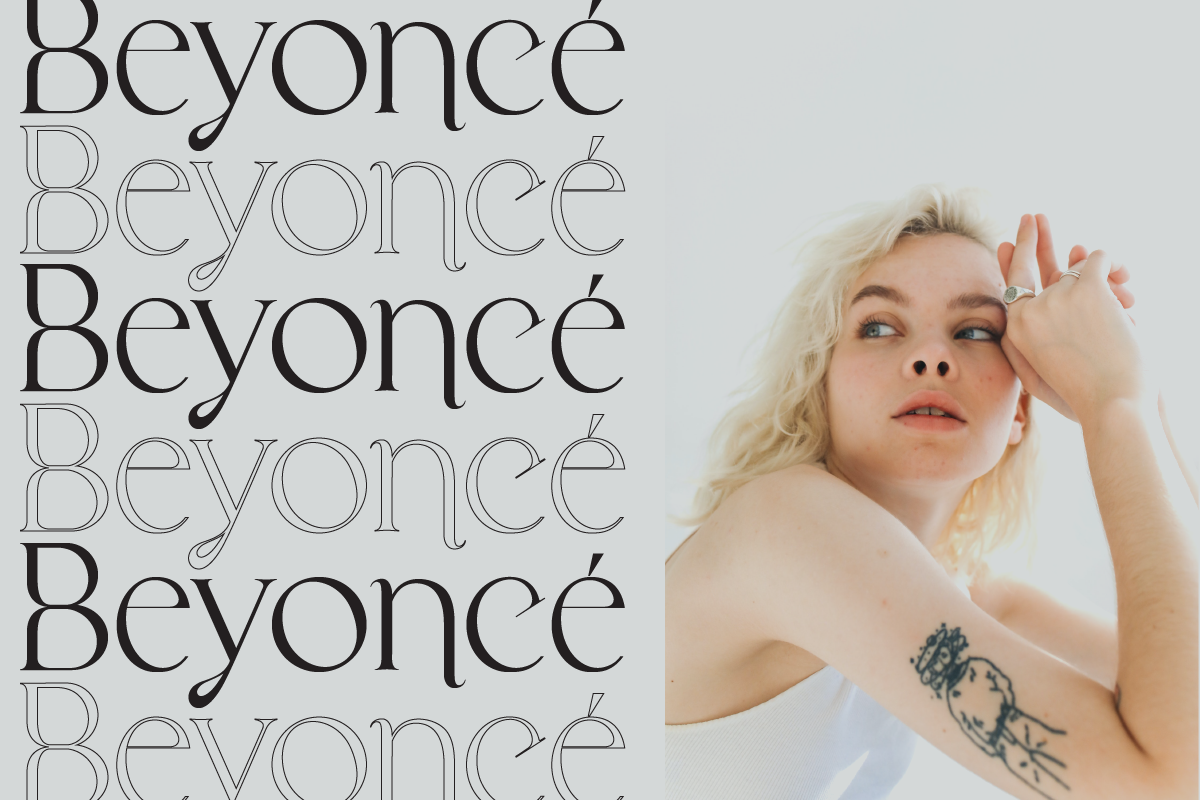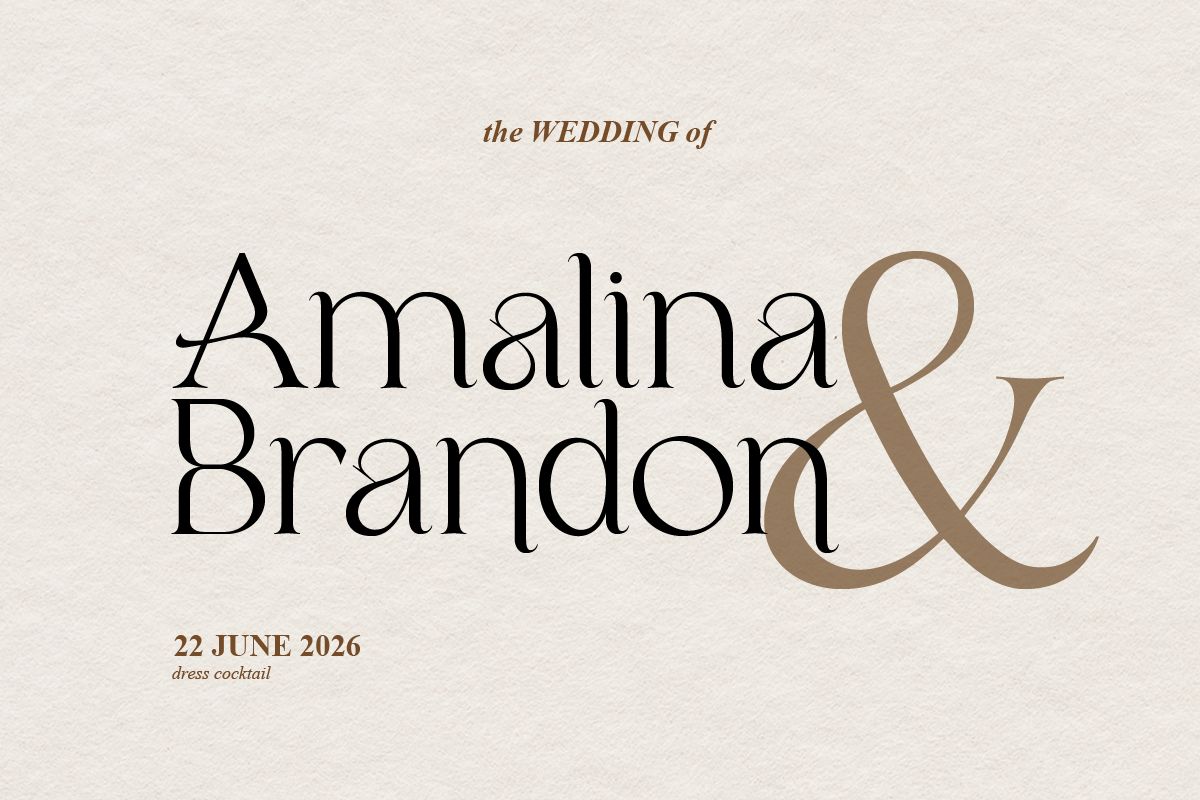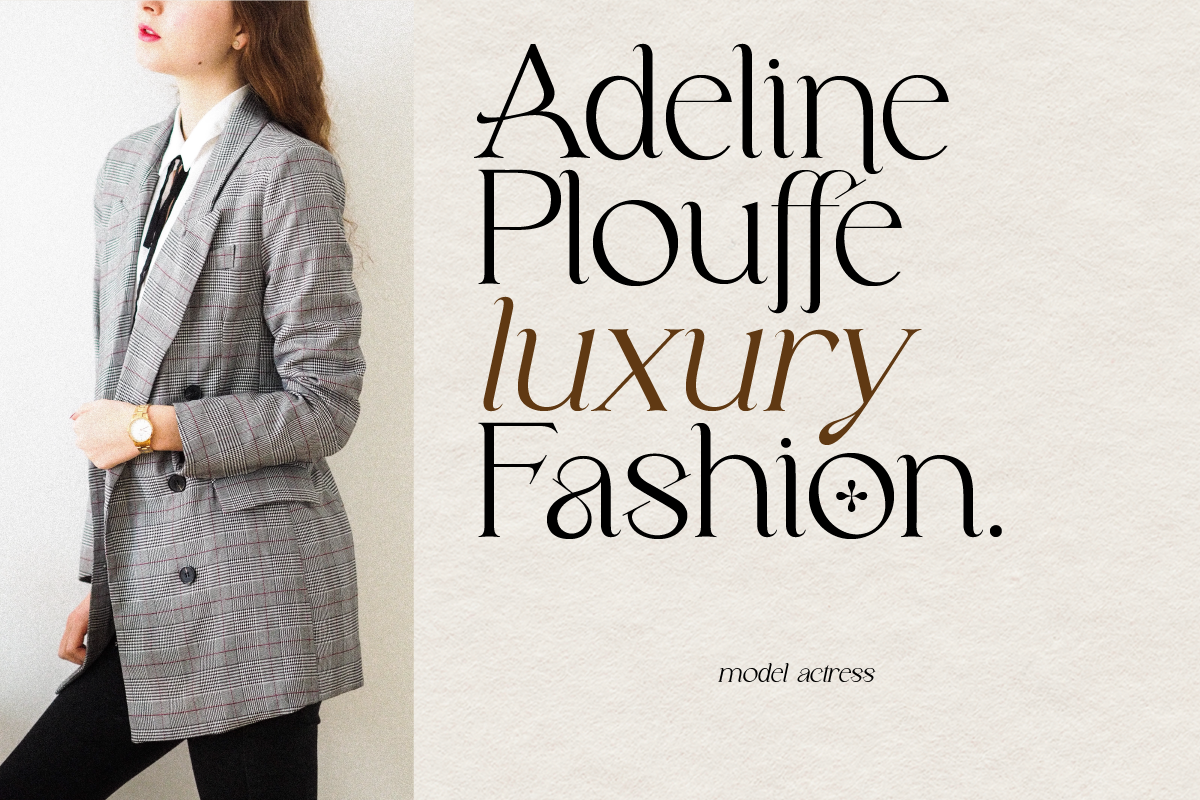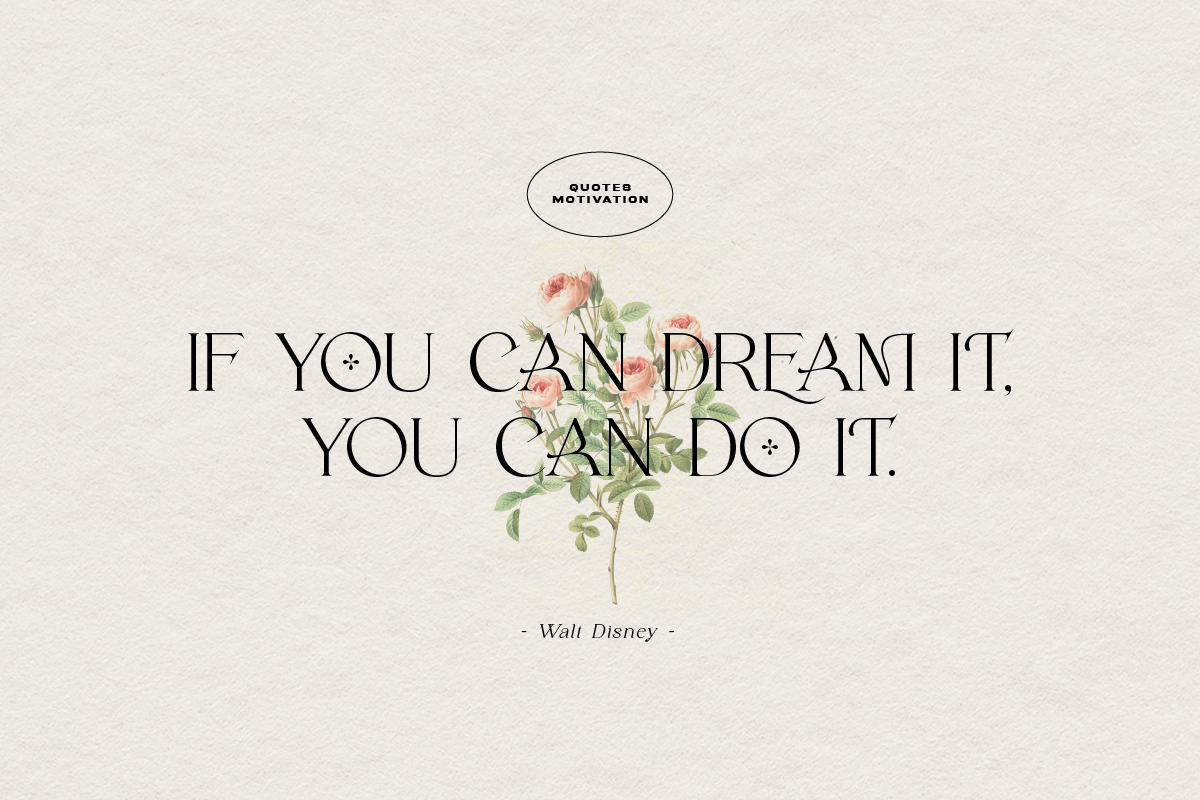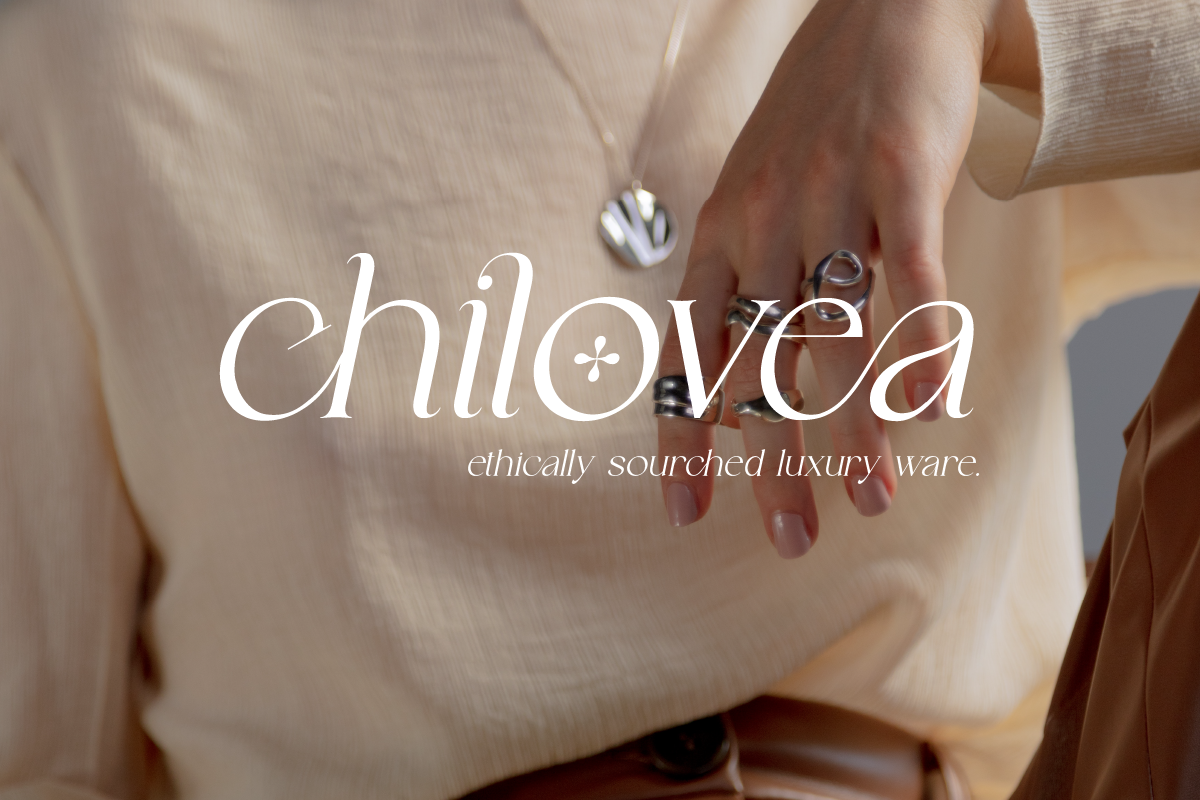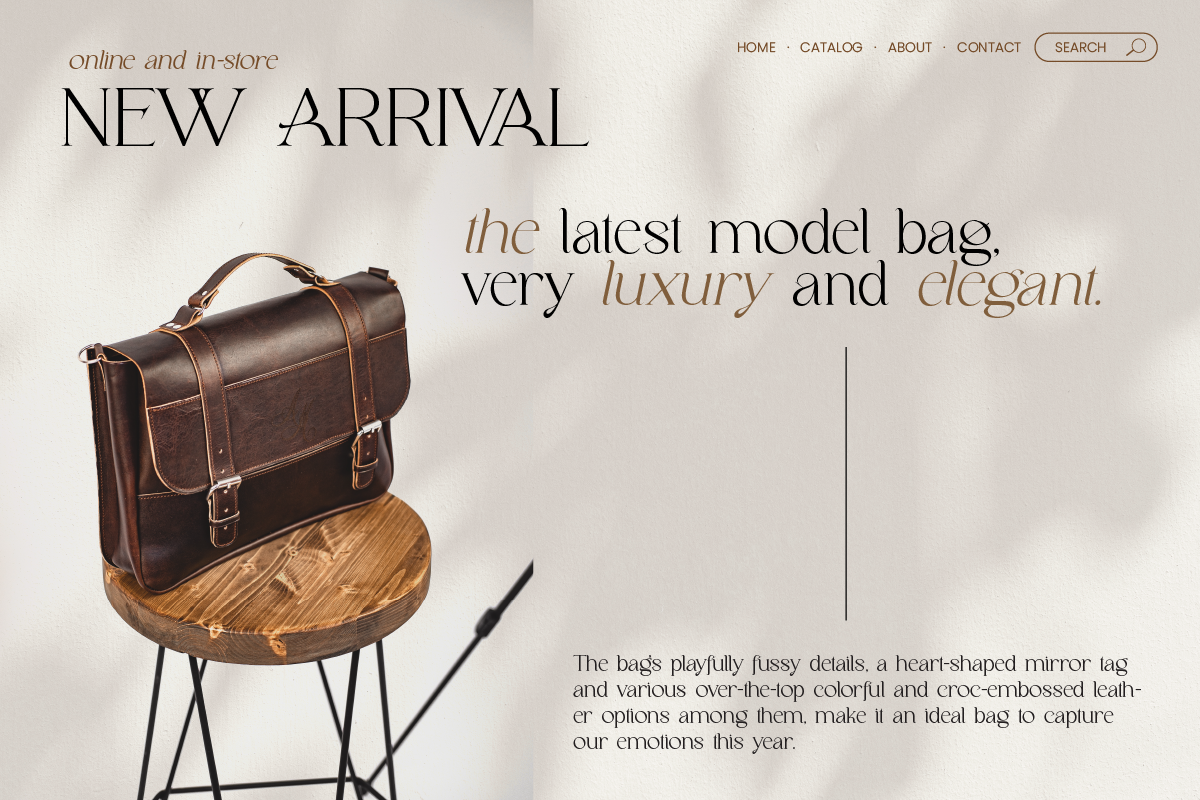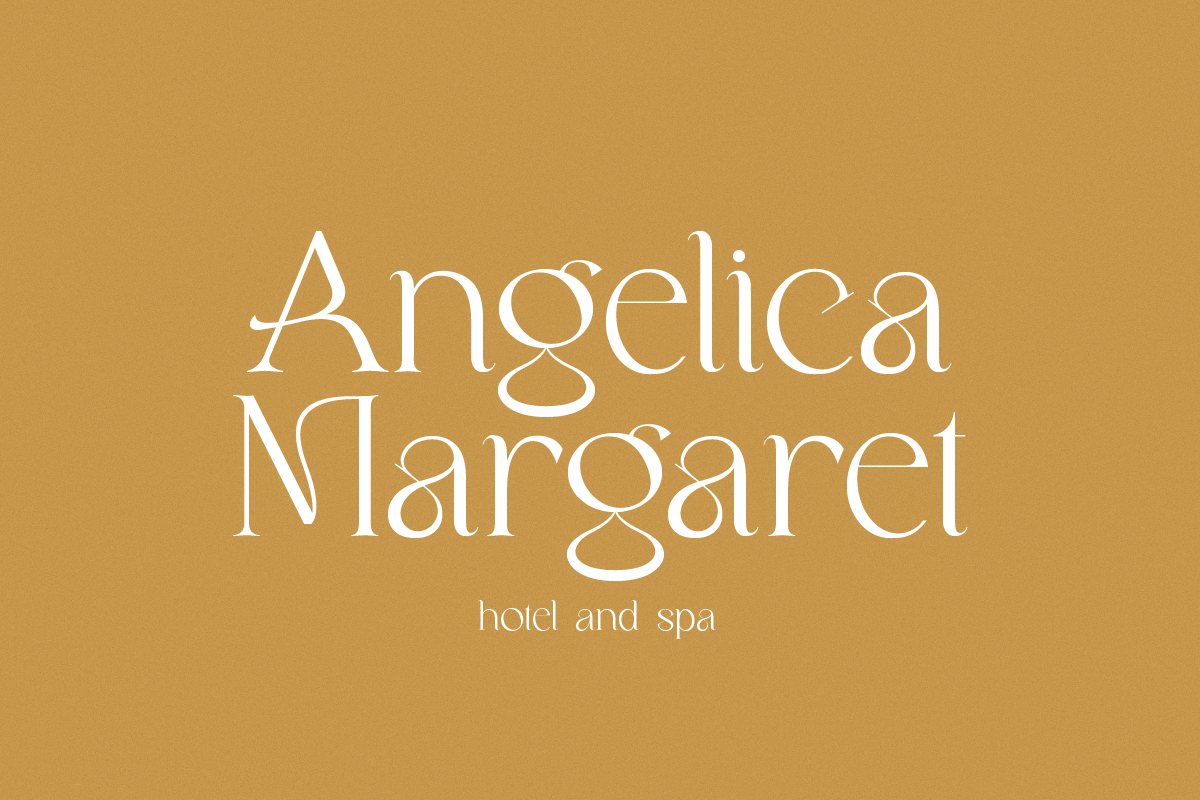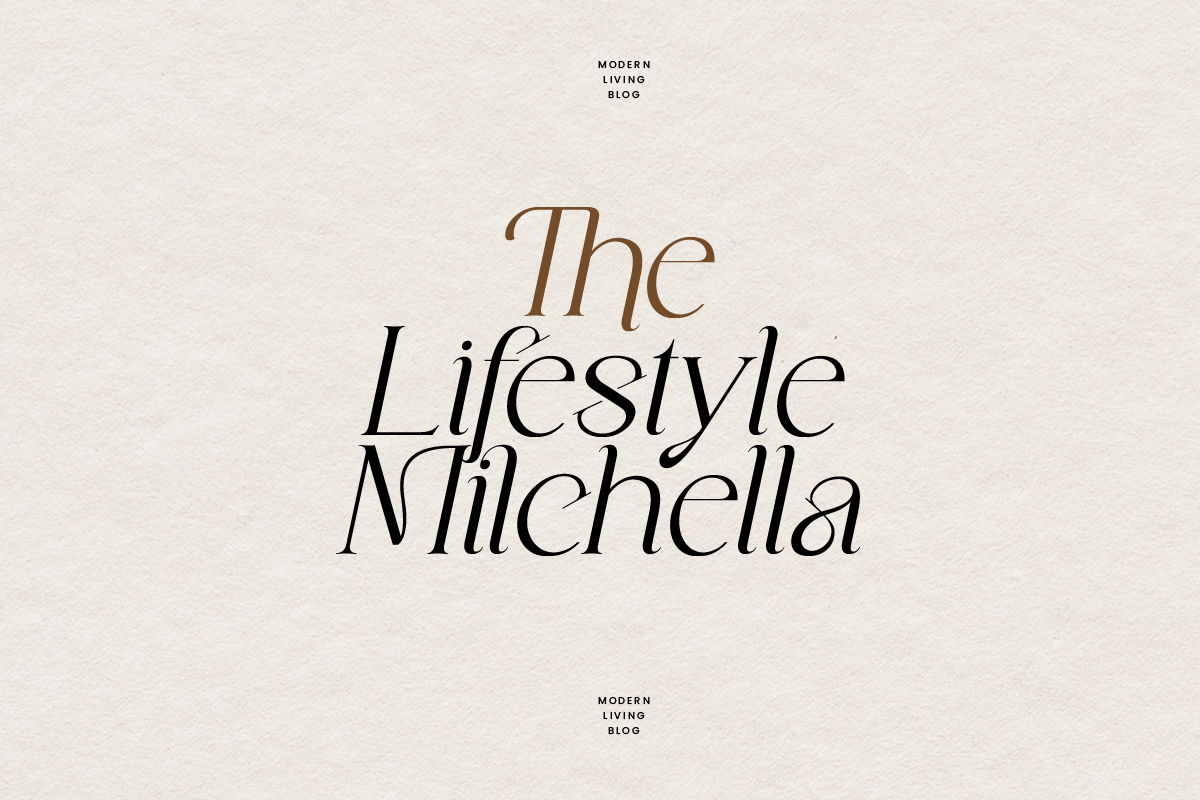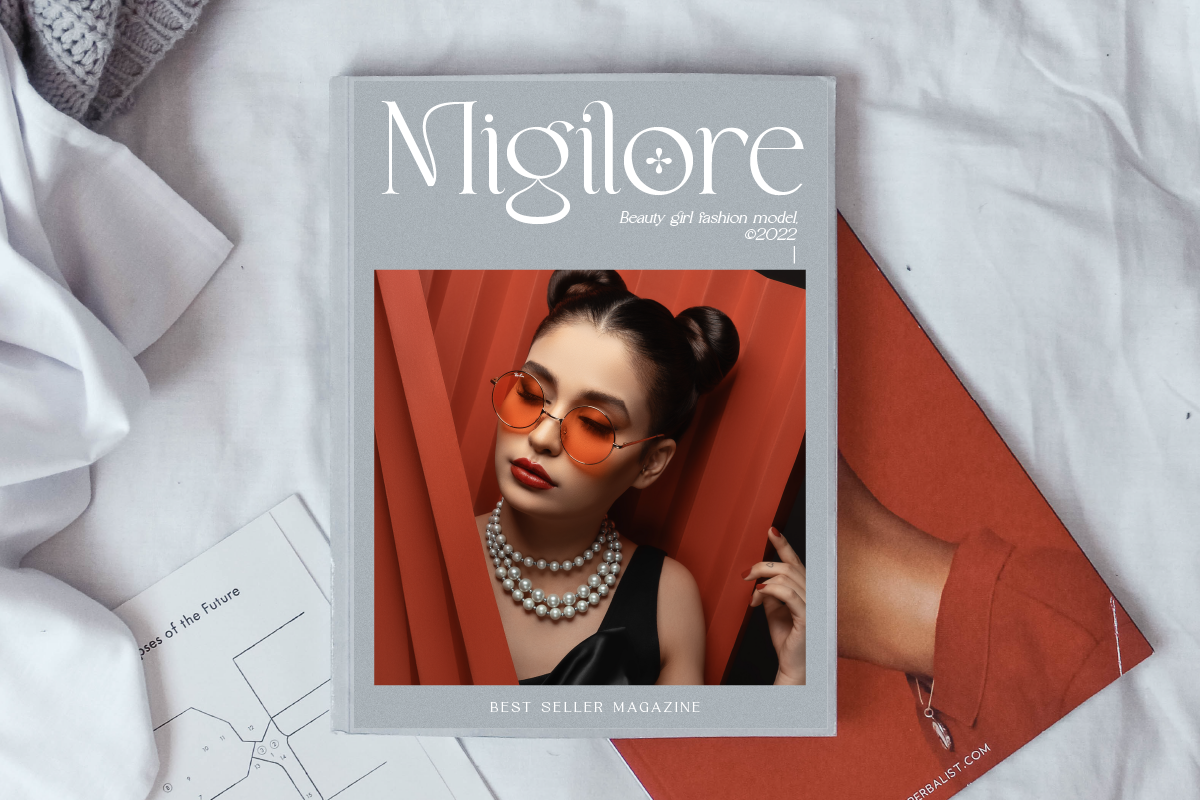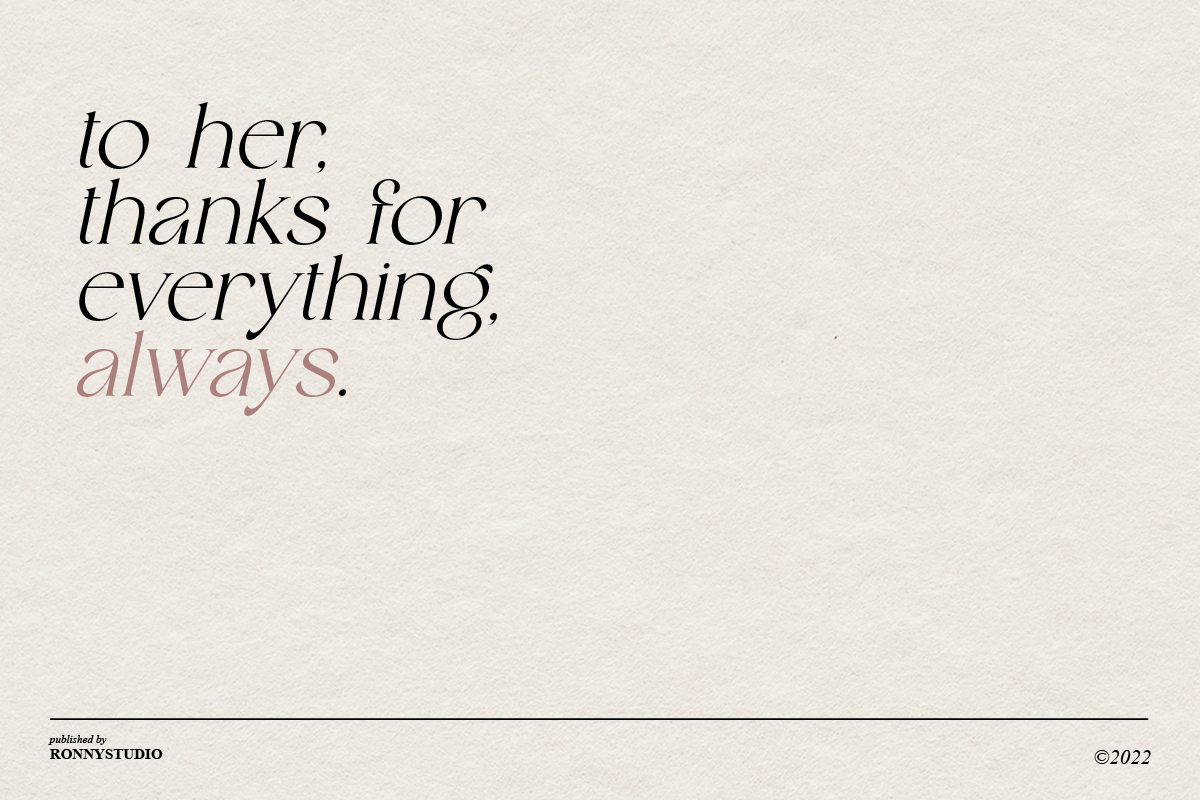
Milchella Beauty Elegant Serif
Milchella is a luxurious and elegant Serif font. This font is impressive and features a clean and elegant font, professionally shaped, and as a result, it will easily match a variety of creations that require a different touch. Add it with confidence to your projects, and you'll love the results. This typeface is perfect for elegant logos, branding, travel promotions, layout magazines, beauty products, product packaging, quotes, or simply as a stylish text overlay onto any background image.
2 Font Style :
- Italic
Milchella Features :